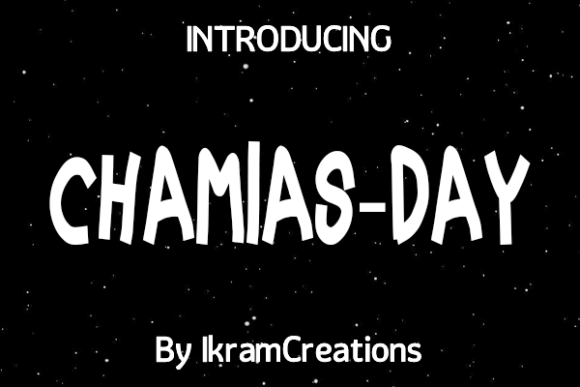
Chamias Day Font
Dive into the realm of typography and meet Chamias Day Font, a whimsical and joyous display font, crafted with precision by IkramCreations. Its striking presence is bound to captivate your audience, leaving a lasting impression on their minds.
Unleash your creativity and let Chamias Day Font dance across your designs. Whether you're crafting eye-catching headlines, alluring posters, or captivating social media graphics, this font will elevate your words into works of art.
Picture your designs adorned with Chamias Day Font, where each letter exudes a sense of joy and playfulness. Its unique character will transform your projects into visual feasts, leaving your audience enthralled.
With Chamias Day Font, you'll effortlessly achieve a captivating and memorable brand identity. It has the power to transform your designs into unforgettable experiences, leaving your audience yearning for more.
So, embrace the magic of Chamias Day Font and let it ignite your creative spark. Add it to your design arsenal today and prepare to witness the wonders it brings to your projects. Unleash the power of typography and let your designs shine with Chamias Day Font.